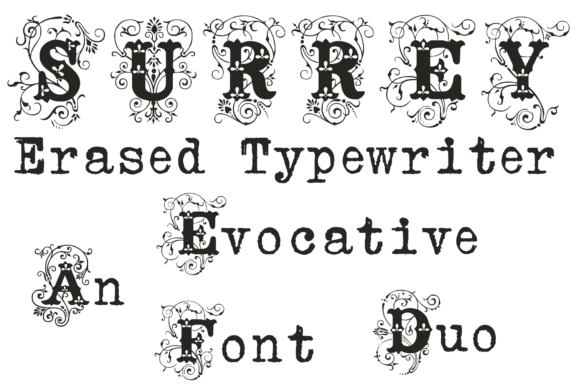
Introducing Surre Erased Typewriter Font, the ultimate choice for your design projects! Created by Intellecta Design, this font duo offers a unique combination of style and versatility that will captivate your audience.
If you're tired of the same old fonts and want to elevate your designs to the next level, Surre Erased Typewriter Font is the answer. With its highly ornamental initials font and modern grunge typewriter font, this set provides endless possibilities for creative expression.
Whether you're designing a logo, poster, or website, Surre Erased Typewriter Font will add a touch of elegance and sophistication. Its rechrché style seamlessly blends with modern functionality, giving your designs a timeless and refined look.
But it's not just about aesthetics. This font duo also offers incredible versatility. The initials font allows you to create eye-catching and personalized monograms, while the typewriter font adds a touch of authenticity and nostalgia.
Imagine the impact your designs will have when you combine the ornamental details of Surre Erased with the rugged charm of Typewriter. Your audience won't be able to look away!
But that's not all. Surre Erased Typewriter Font is also incredibly easy to use. Whether you're a seasoned designer or just starting out, you'll find this duo user-friendly and intuitive.
With the ability to convey both elegance and authenticity, Surre Erased Typewriter Font is the perfect choice for any project. It will help you stand out from the crowd and leave a lasting impression on your audience.